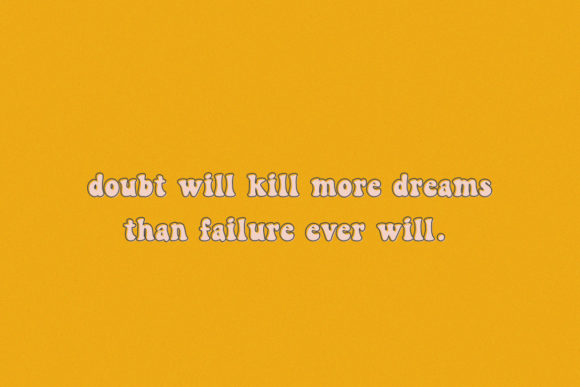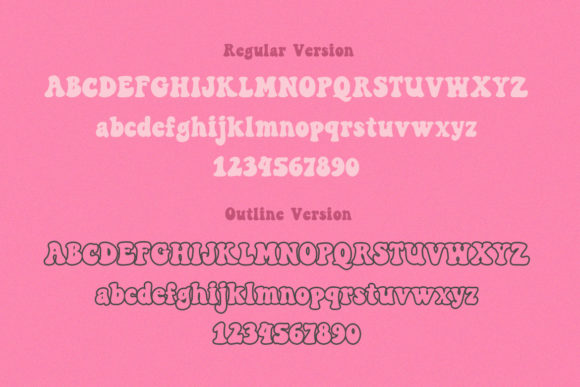
Peace and Love Font
Peace and Love is a fun and retro styled display font. This font is perfect for children themed designs, especially when combined with bright colors.